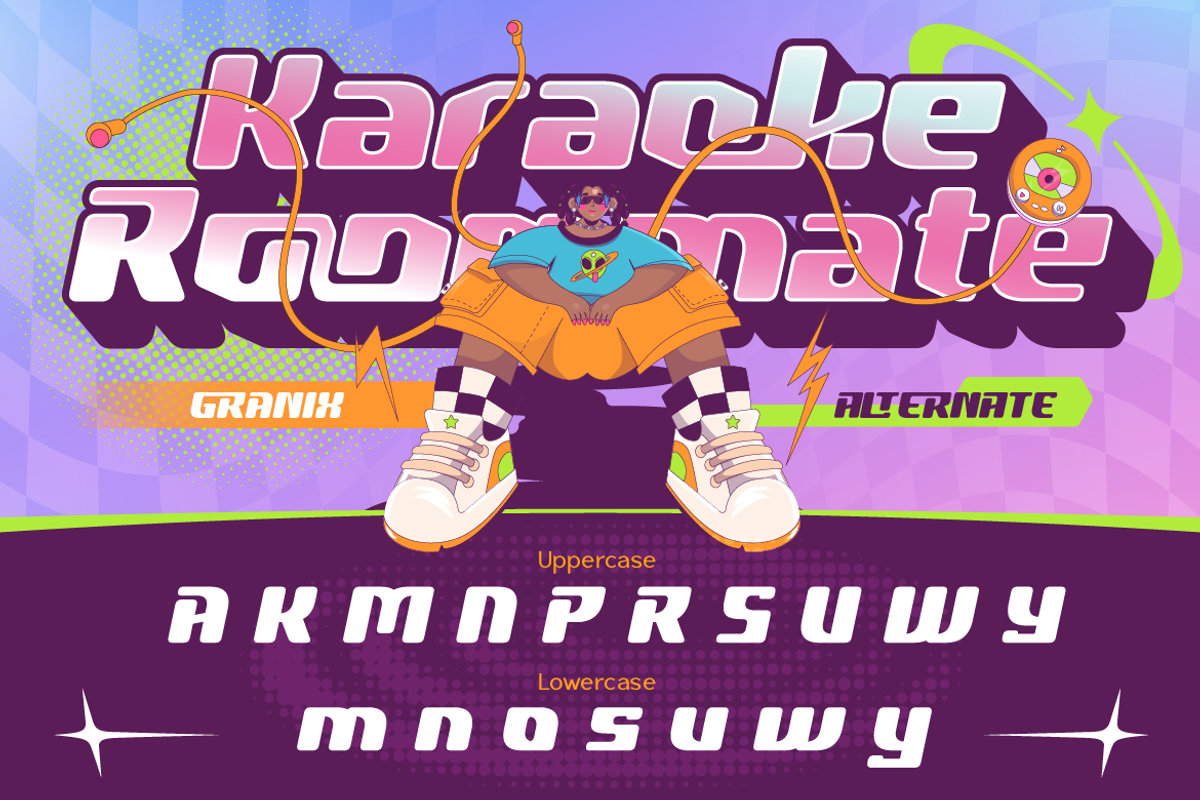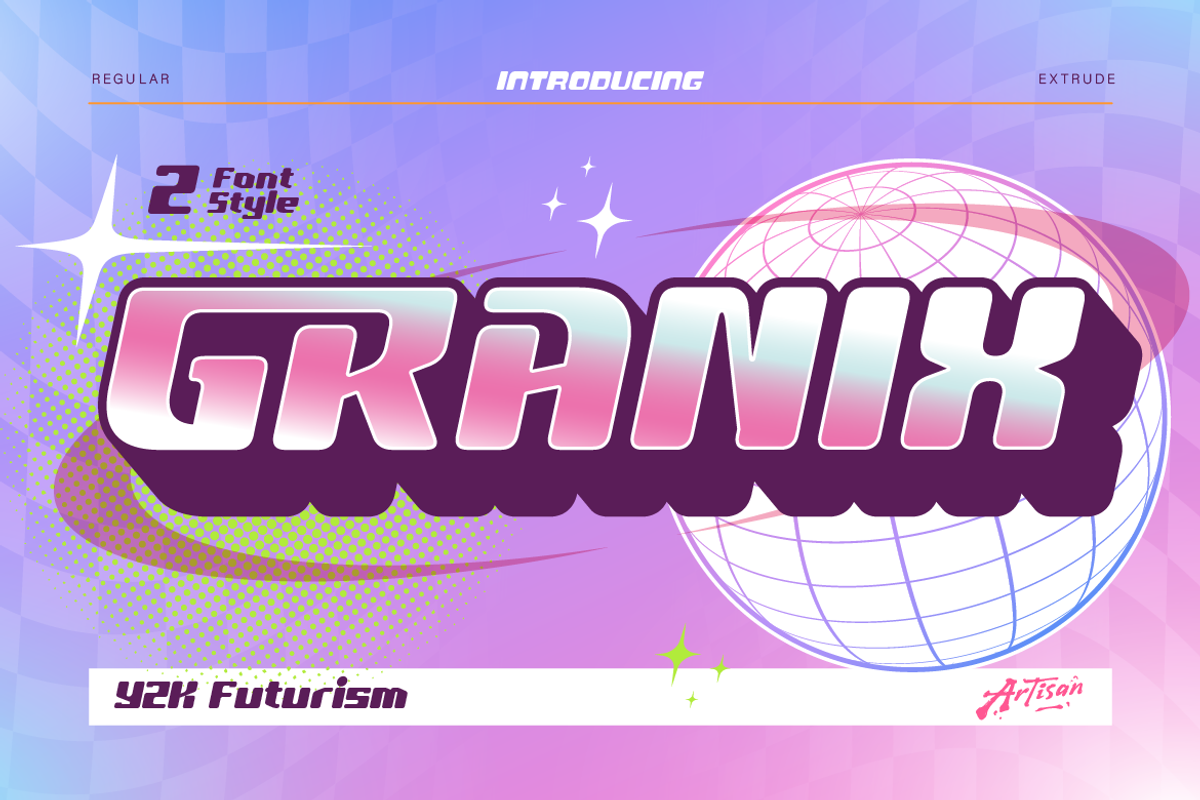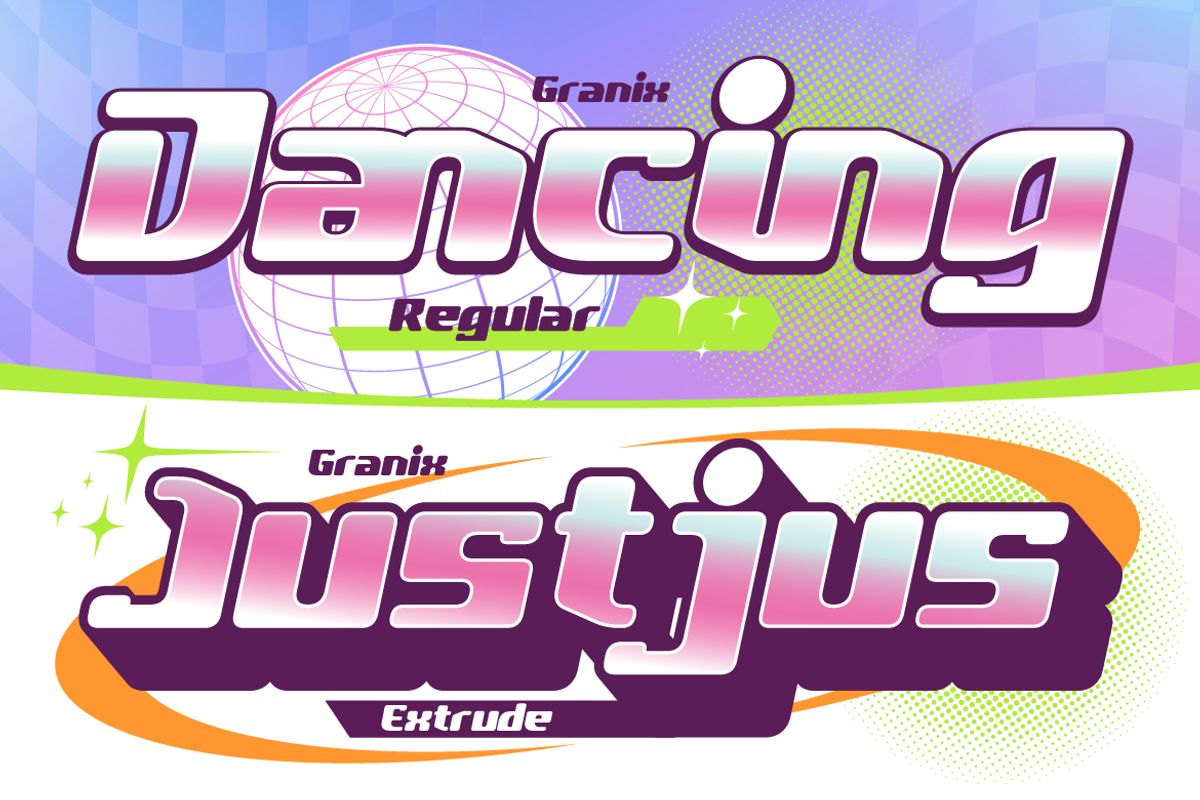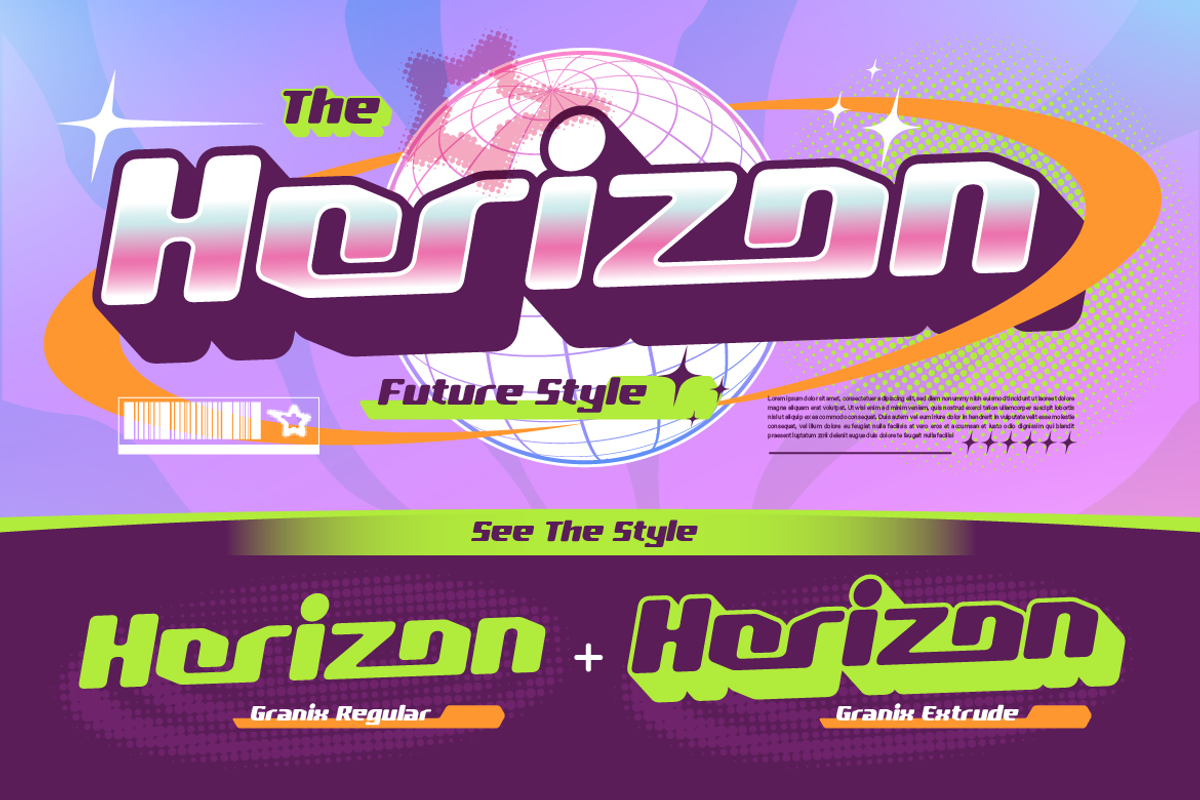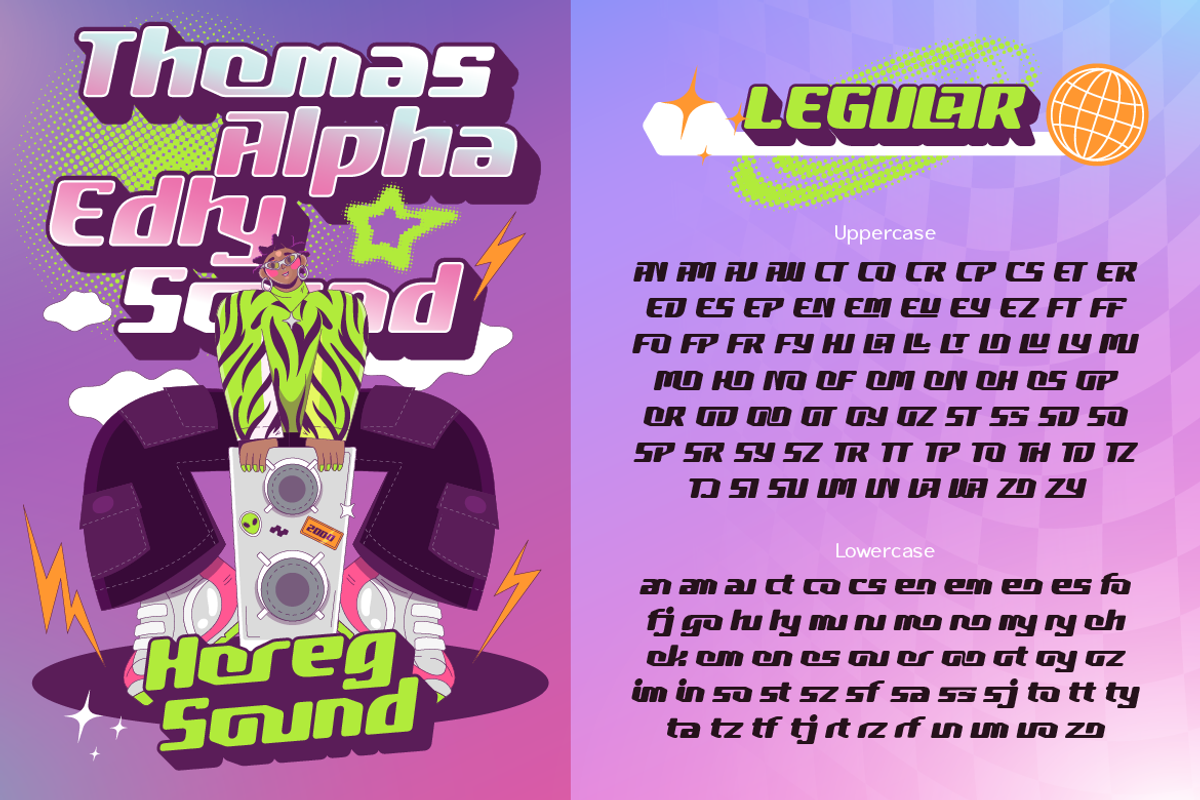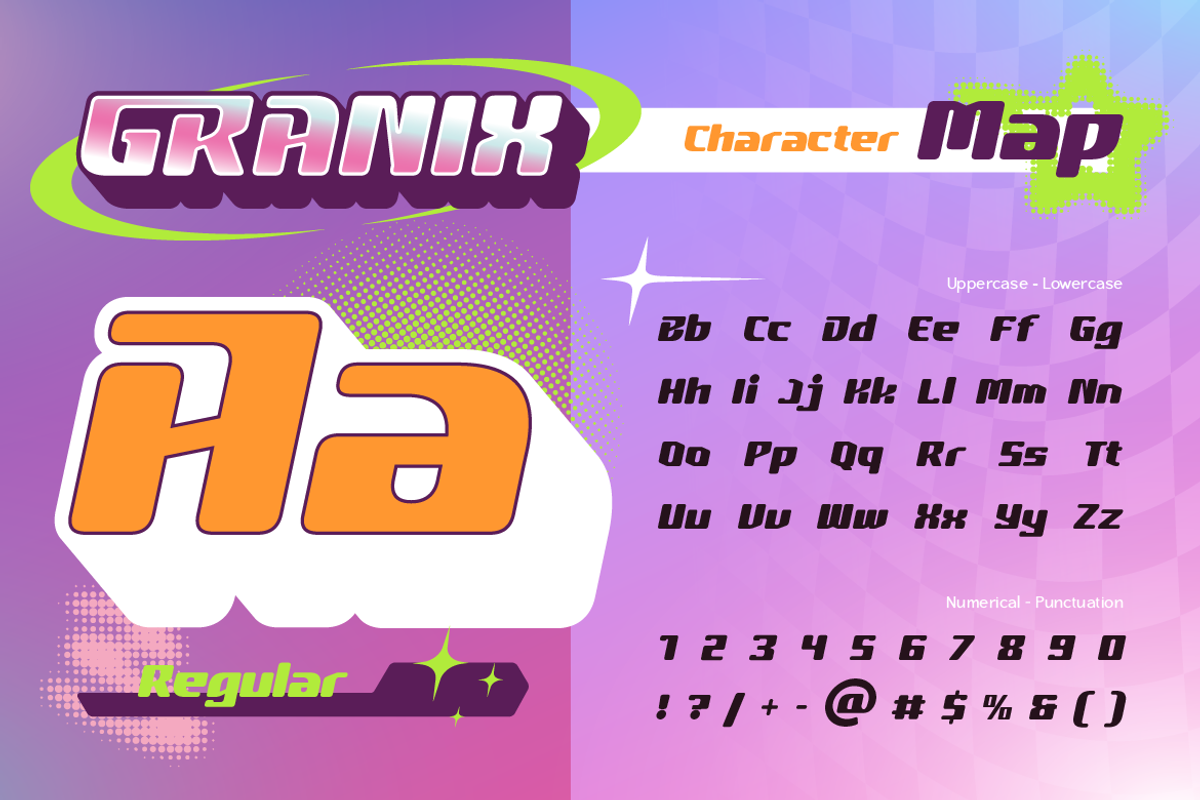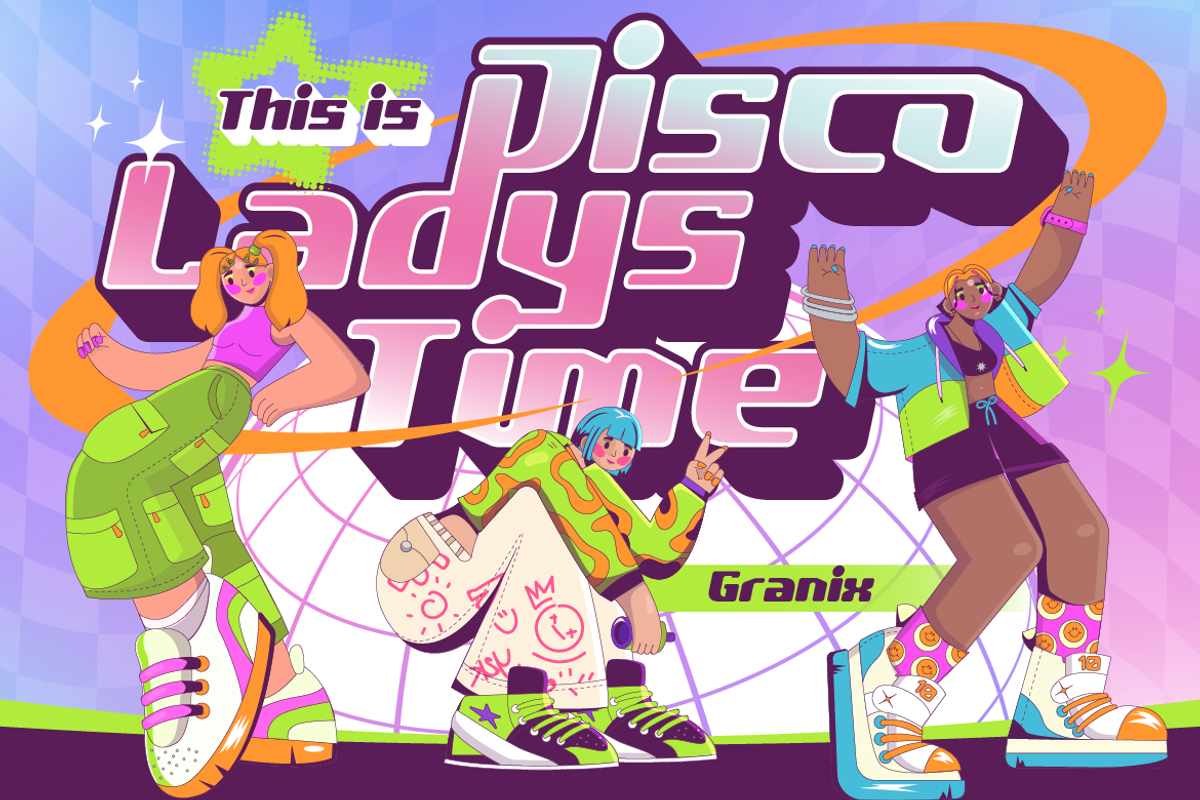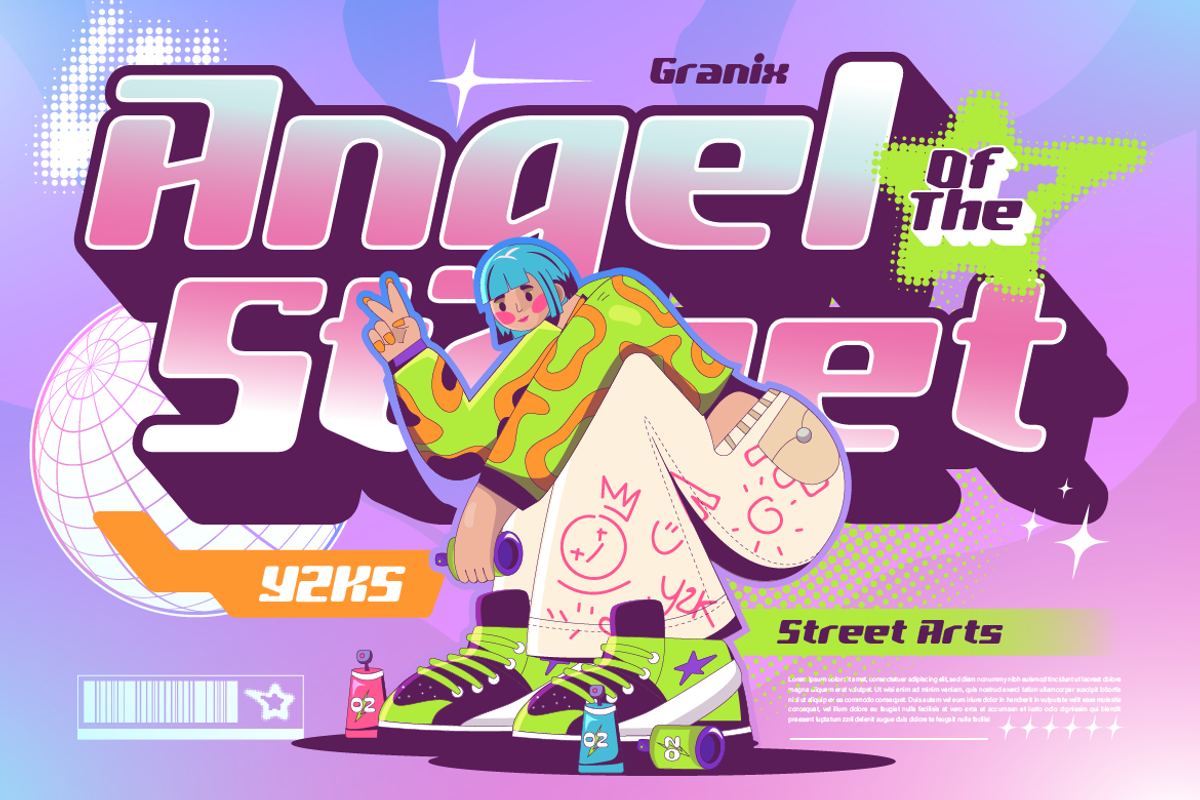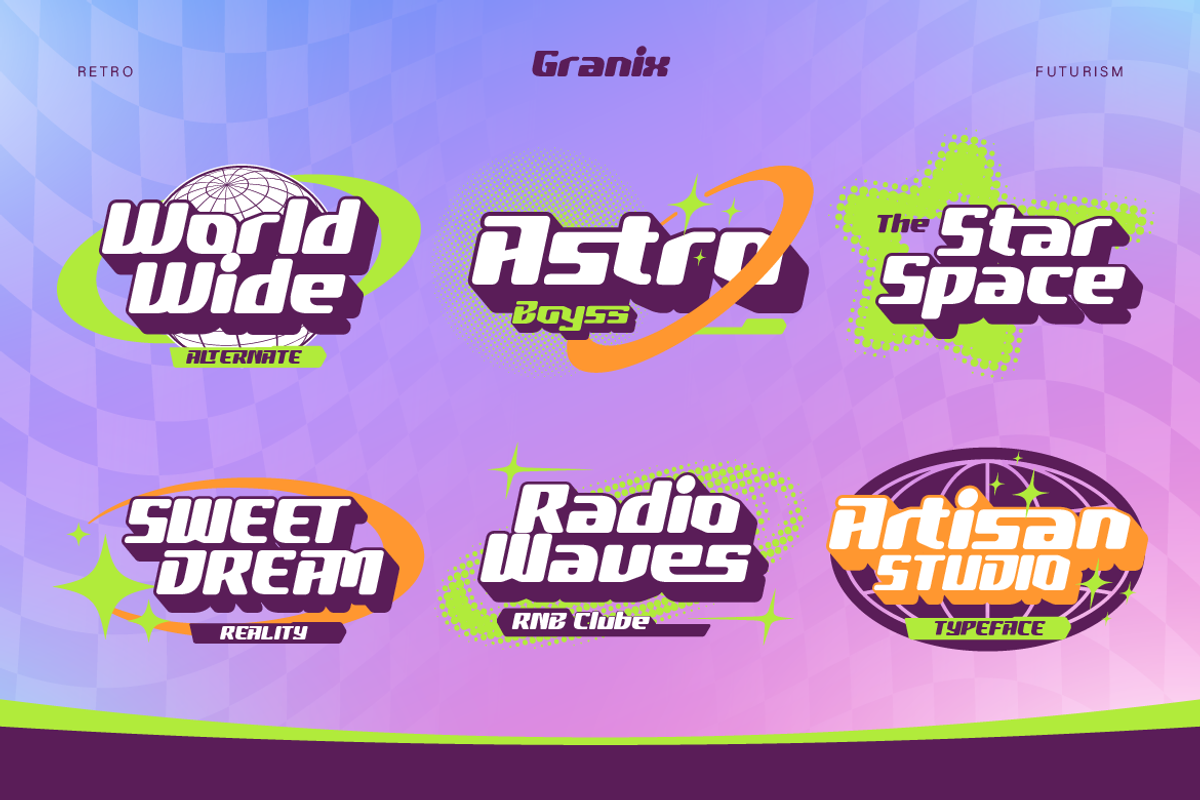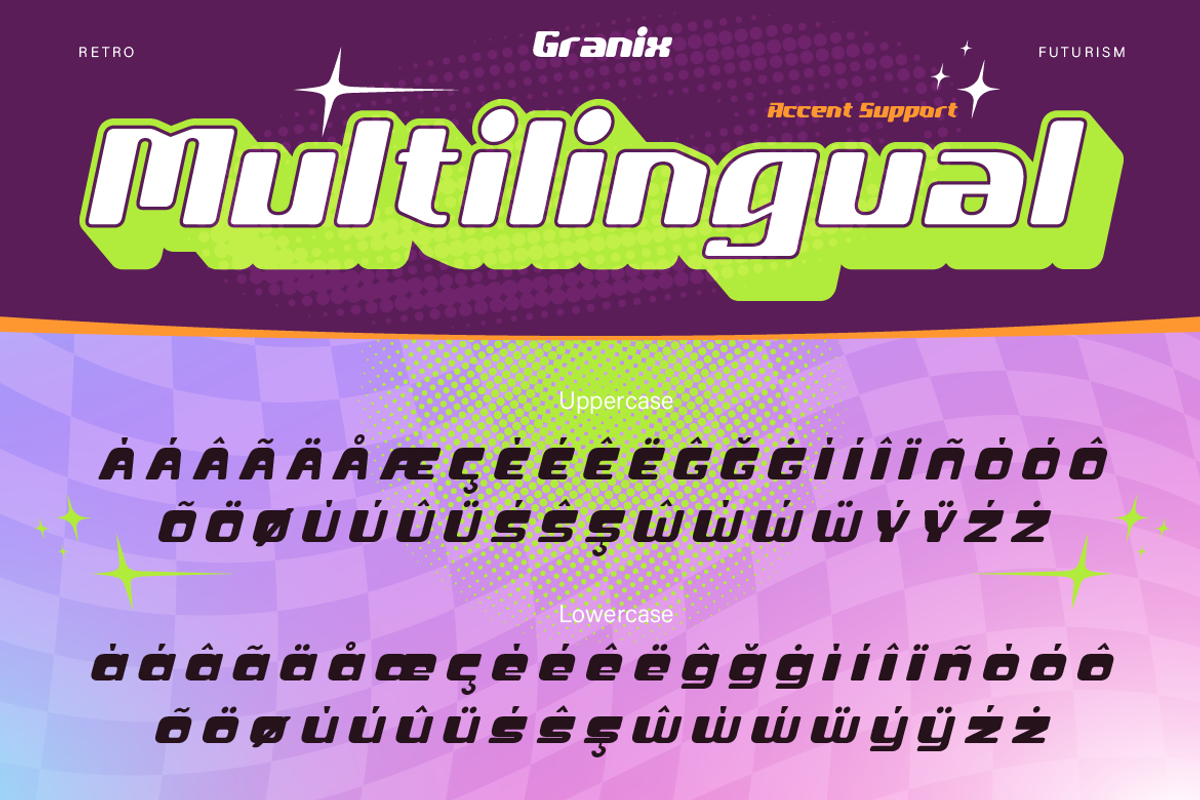
Granix
Granix, a playful and eye-catching display font inspired by retro-future aesthetics, street culture, and early 2000s digital vibes. Designed to stand out, Granix blends chunky letterforms, smooth curves, and vibrant personality into one powerful typeface. With its unique bubble-tech style and dynamic shapes, this font instantly brings energy and nostalgia to your designs—perfect for creatives who want something loud, fun, and unforgettable. Granix comes with 2 font styles:
- Regular – Clean, bold, and highly readable
- Extrude – A layered 3D-style version for extra depth and impact
- Streetwear & fashion branding
- Music covers (pop, hip-hop, electronic, hyperpop)
- Posters & event flyers
- Social media graphics & Instagram posts
- Gaming & tech visuals
- Creative projects with Gen Z / Y2K vibes